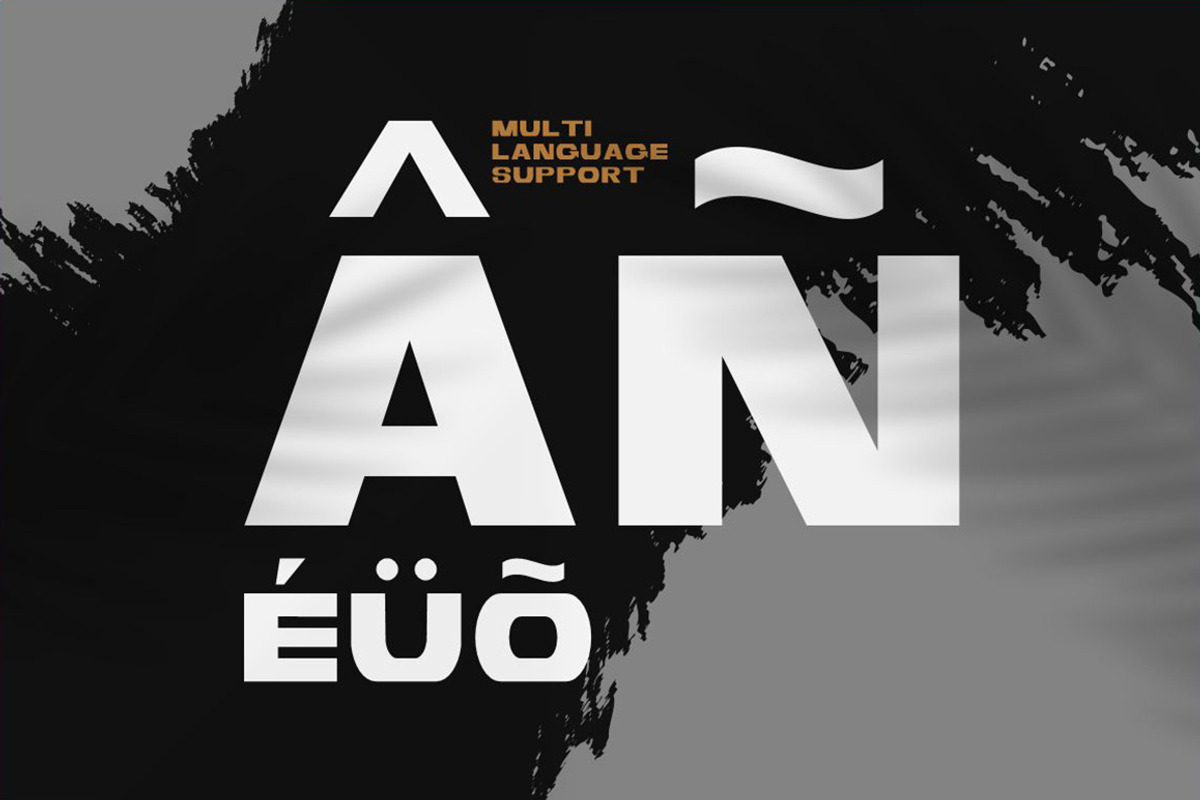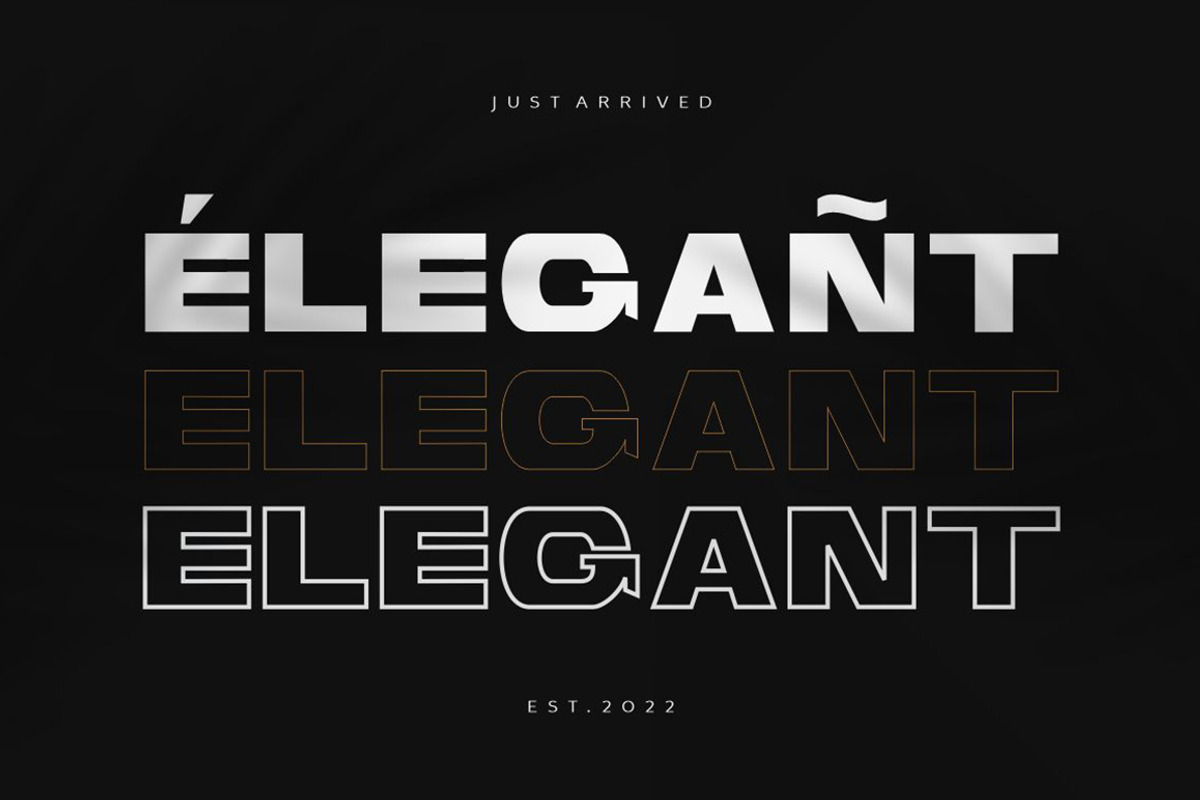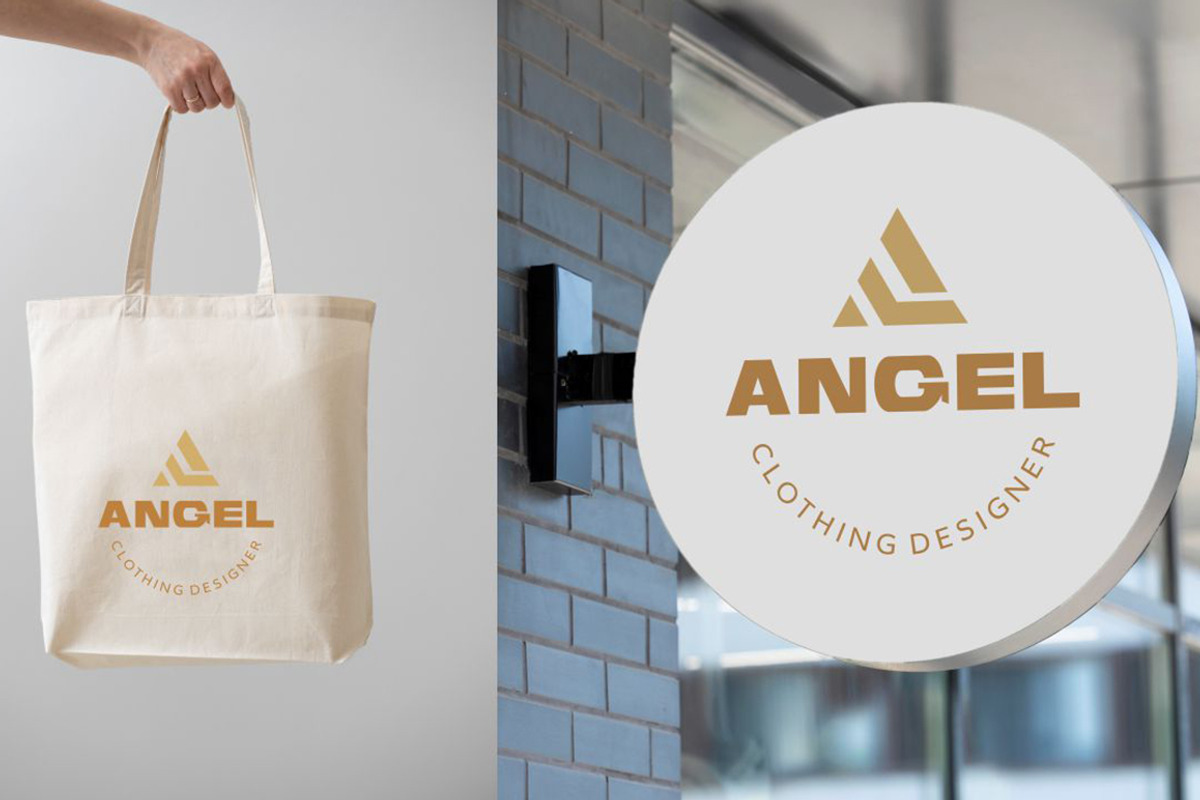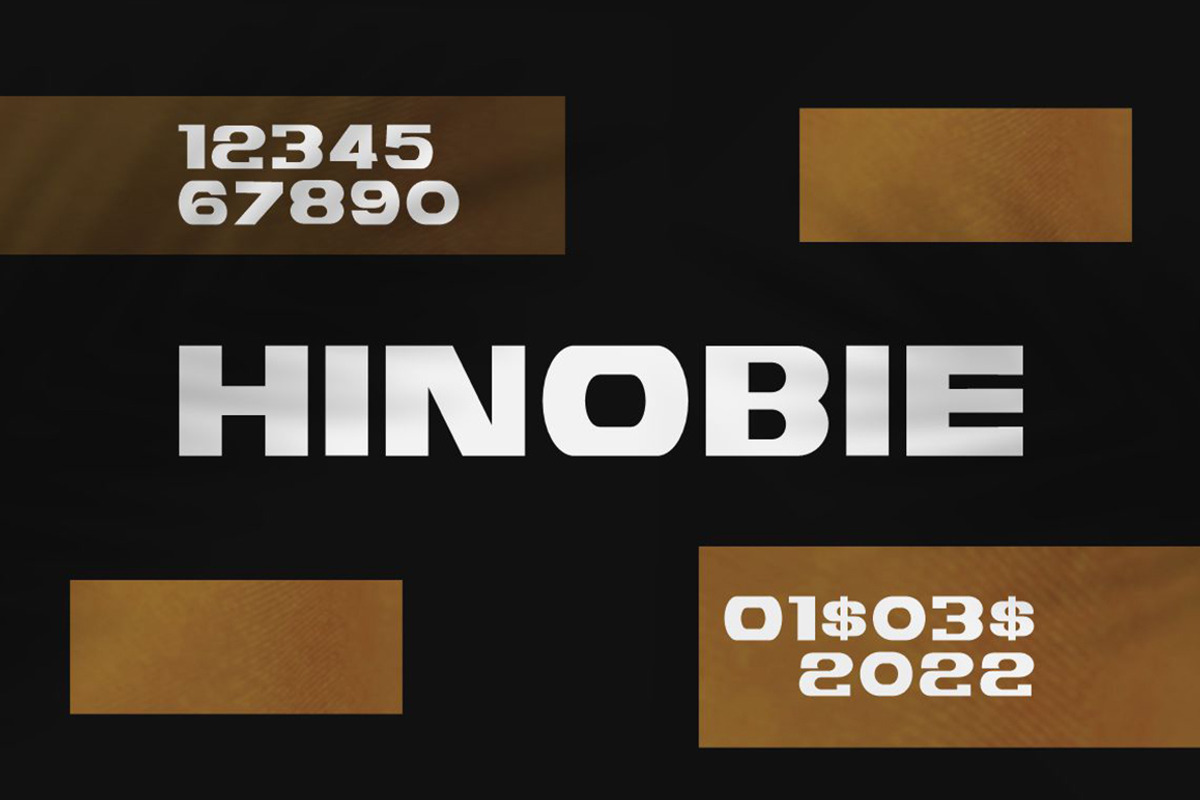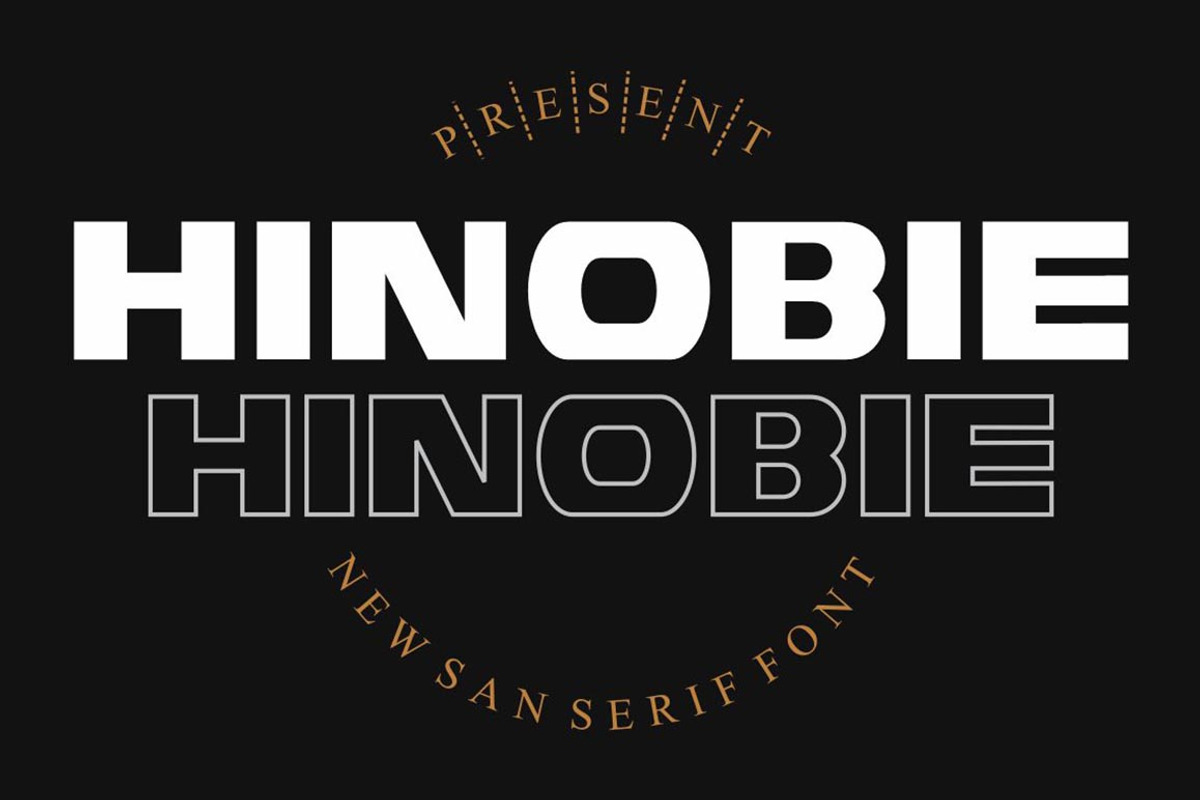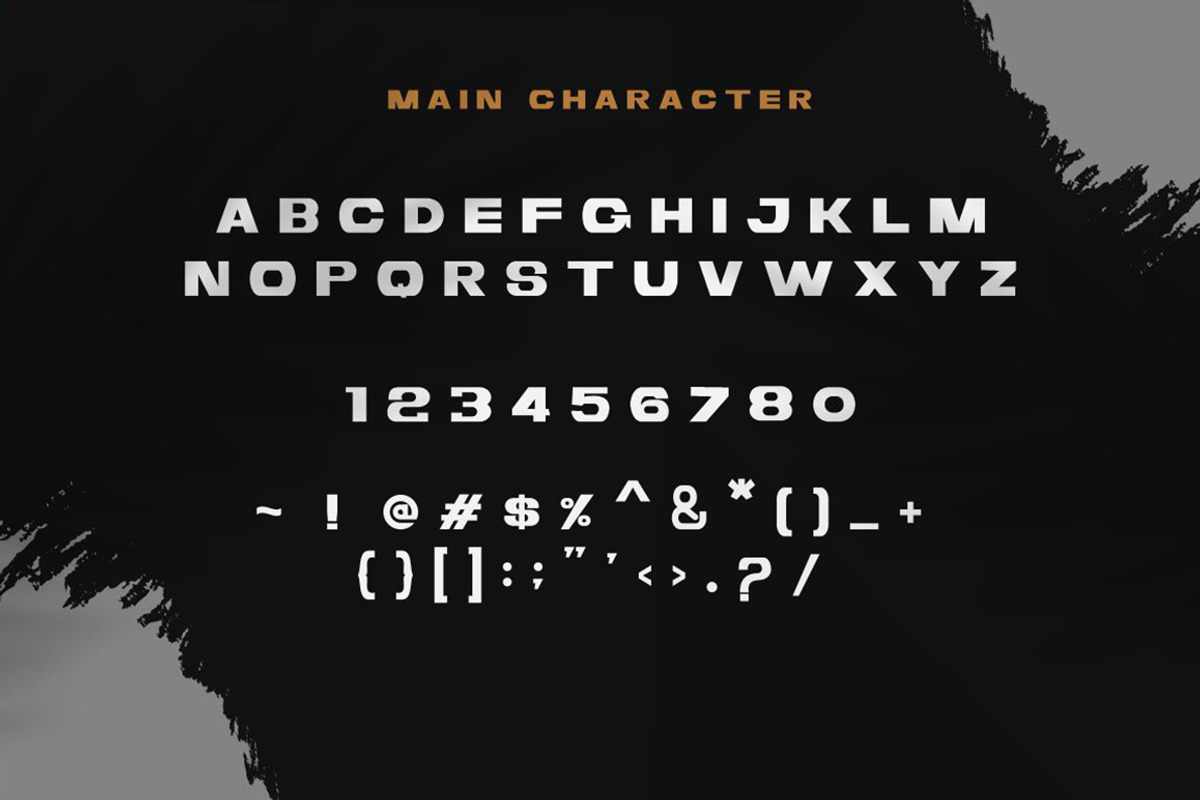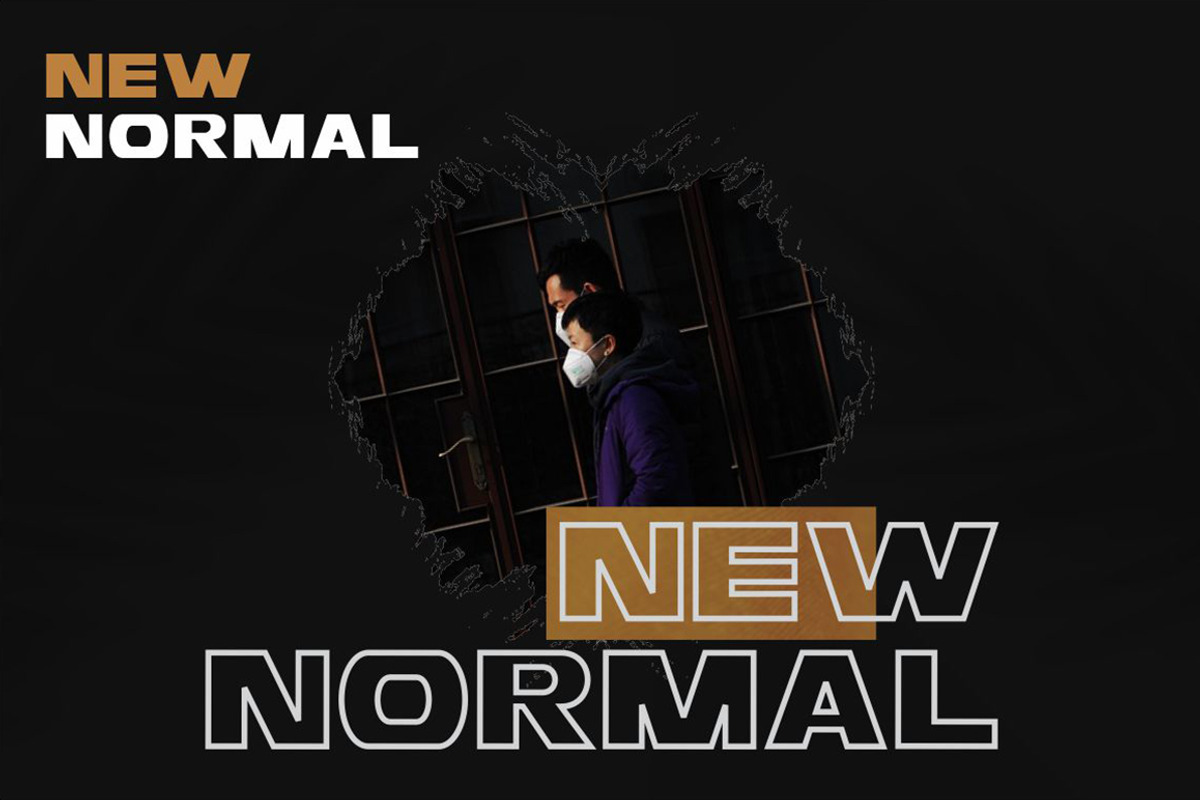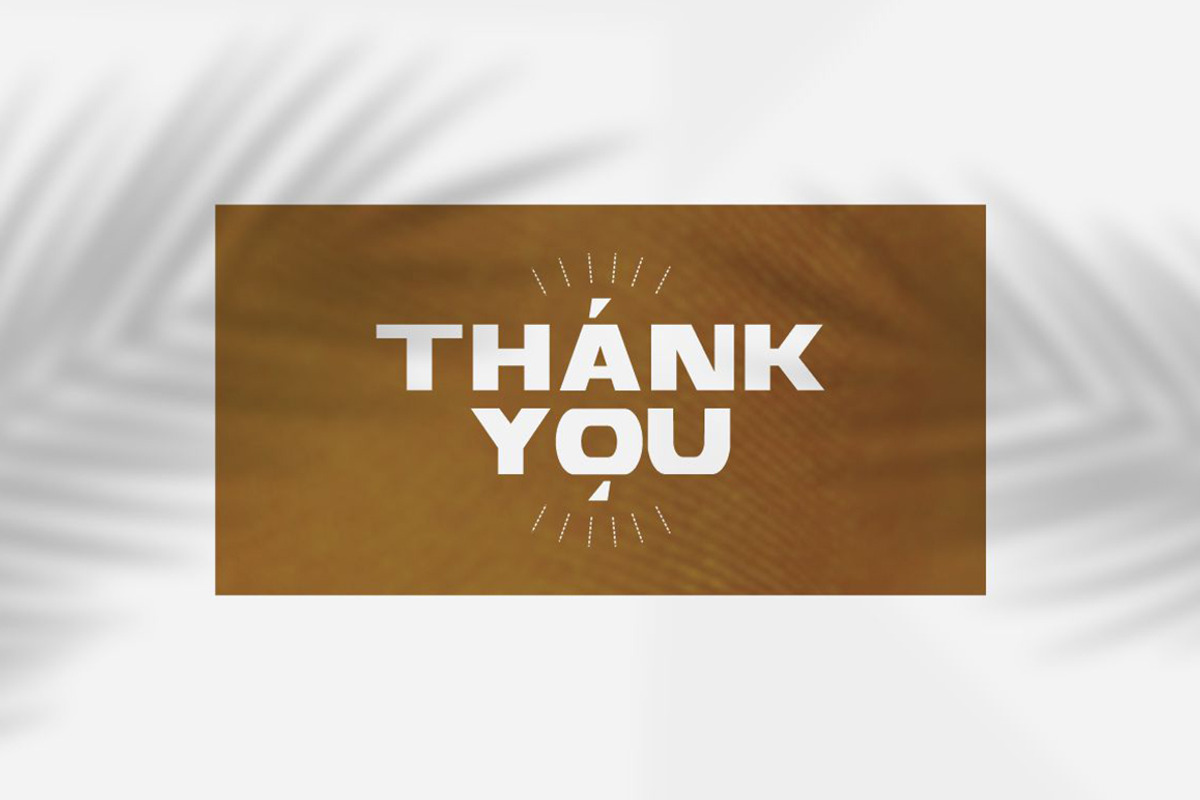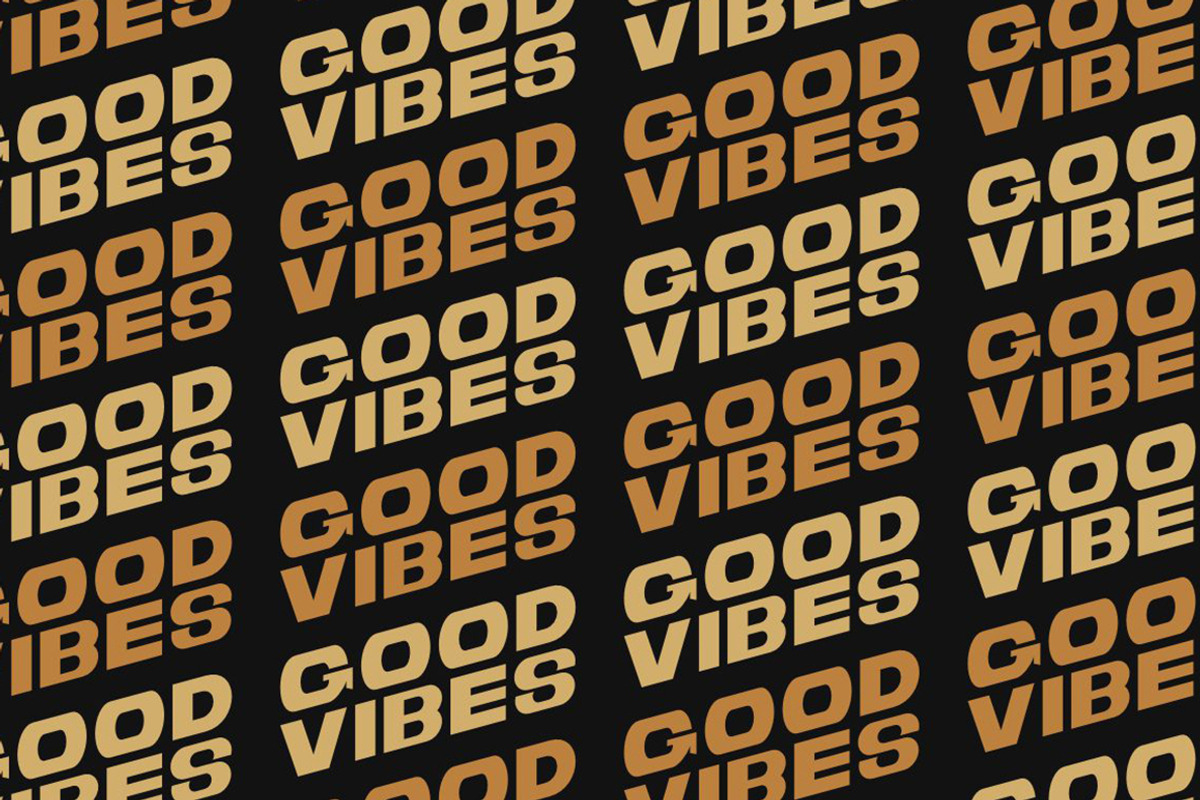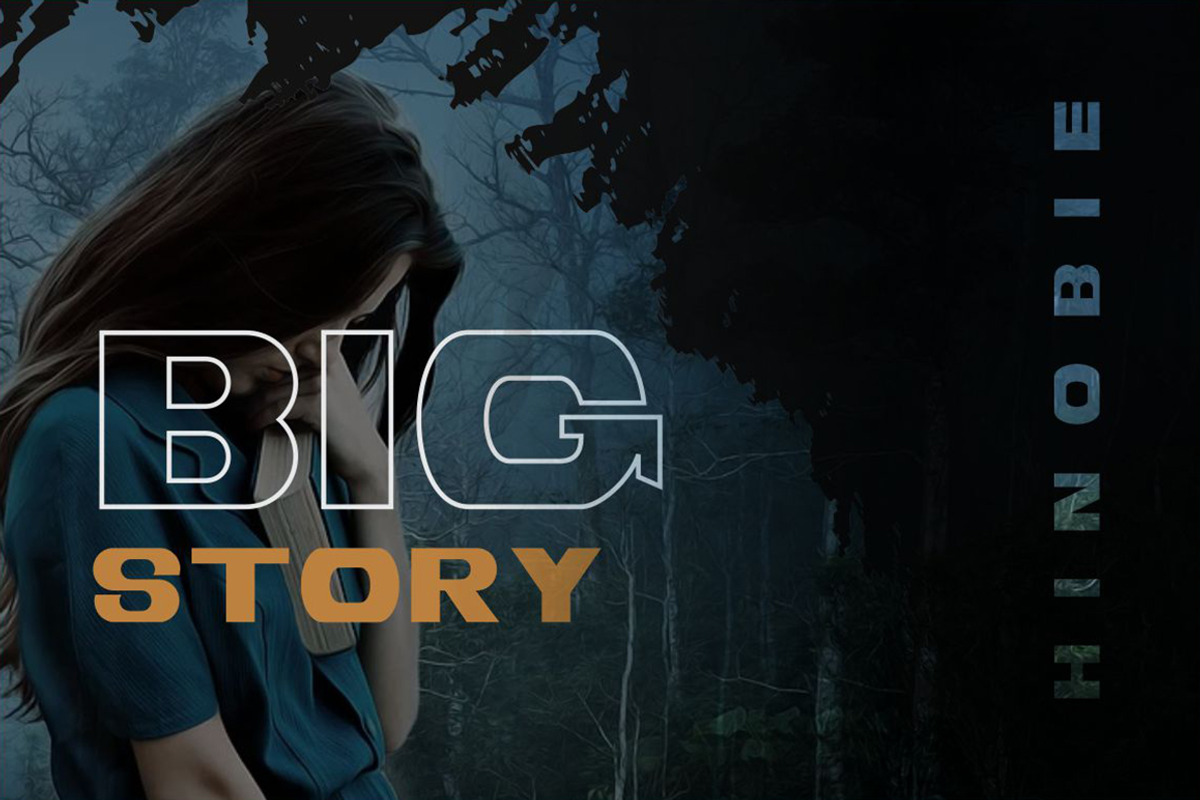
HINOBIE
HINOBIE is a Serif Display Font with a modern, classy, fun, unique, and versatile style. It looks amazing at display sizes and easy to read at text sizes. This font also has lots of unique alternatives and binders that will make for amazing design projects.
HINOBIE - Glamor Serif Display Font works well for branding projects, logos, wedding designs, social media posts, advertising, product packaging, product design, labels, photography, watermarks, invitations, or any other project you're working on.